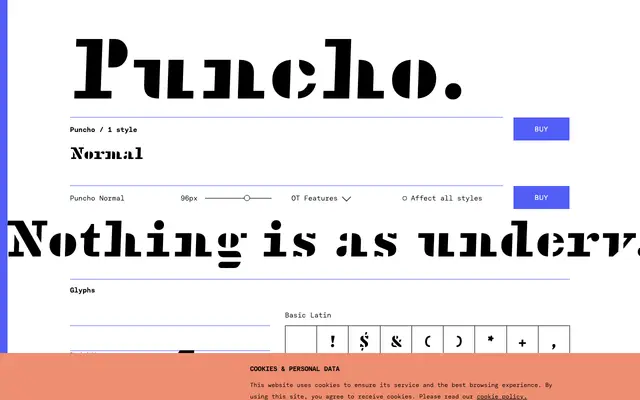
Puncho
TYPE BY · Fred Smeijers · 2012
A stencil typeface by Fred Smeijers based on 19th-century metal letter punches made by S. M. Spencer of Boston, with letterforms constrained by the mechanical realities of their original manufacture at 1/8 inch.
Originally released as part of the OurType Stencil Series in 2012, Puncho debuted alongside an exhibition on stencil letter history curated by Eric Kindel and Smeijers at Catapult gallery in Antwerp. Its unusual letterforms trace directly to Spencer's tiny punch-made stencils, where minimal size and industrial process dictated simple, sturdy shapes. Available in a single weight covering an extended Latin character set.
Puncho is a stencil display typeface derived from metal stencil letter punches, with letterforms shaped by the mechanical constraints of small-scale punch manufacture rather than conventional type design conventions.